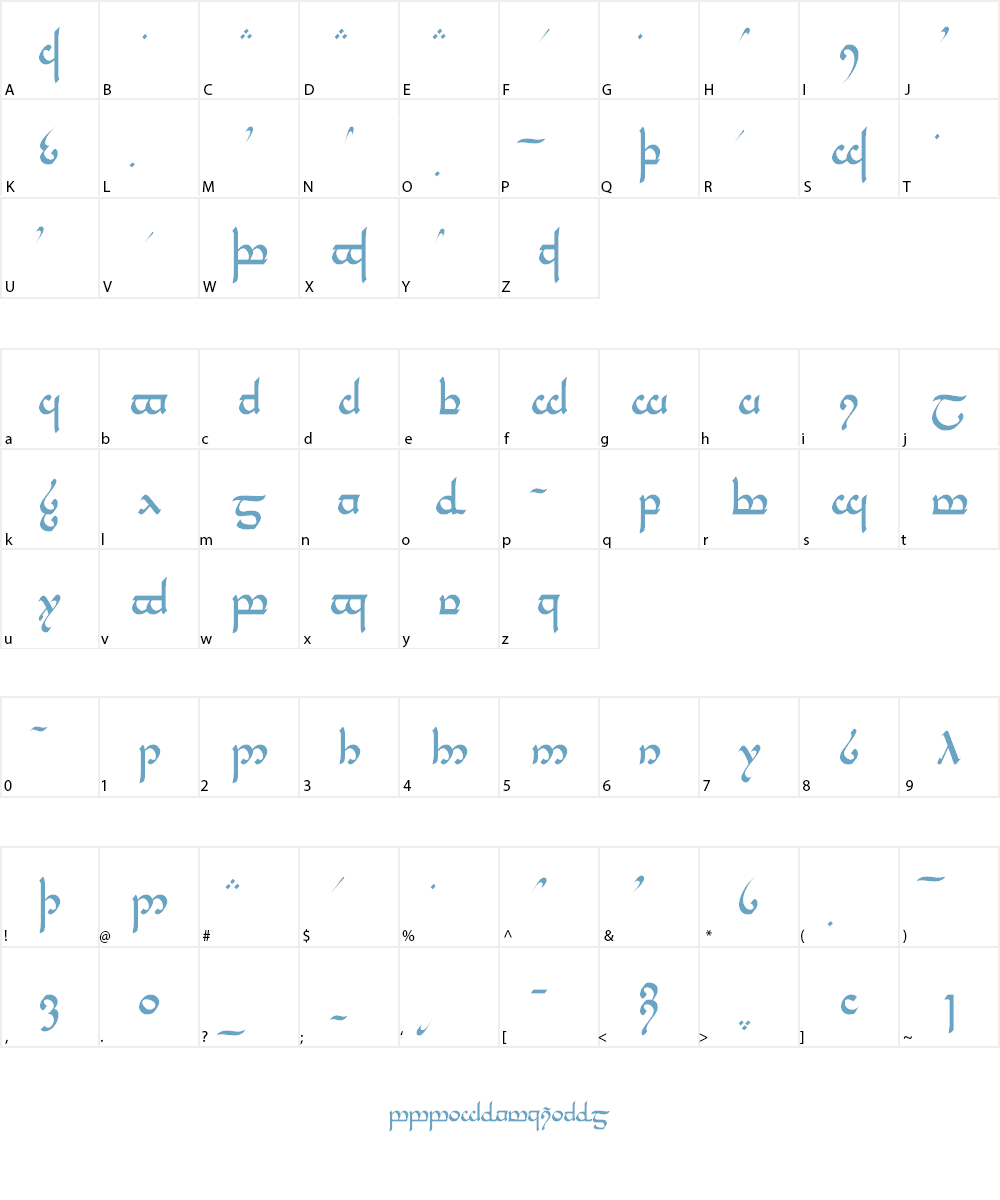
This is a Tengwar font based on my interpretation of the formal book-hand style. It basically follows the character mapping of Dan Smith’s Tengwar fonts, with a few exceptions which are noted in the documentation.